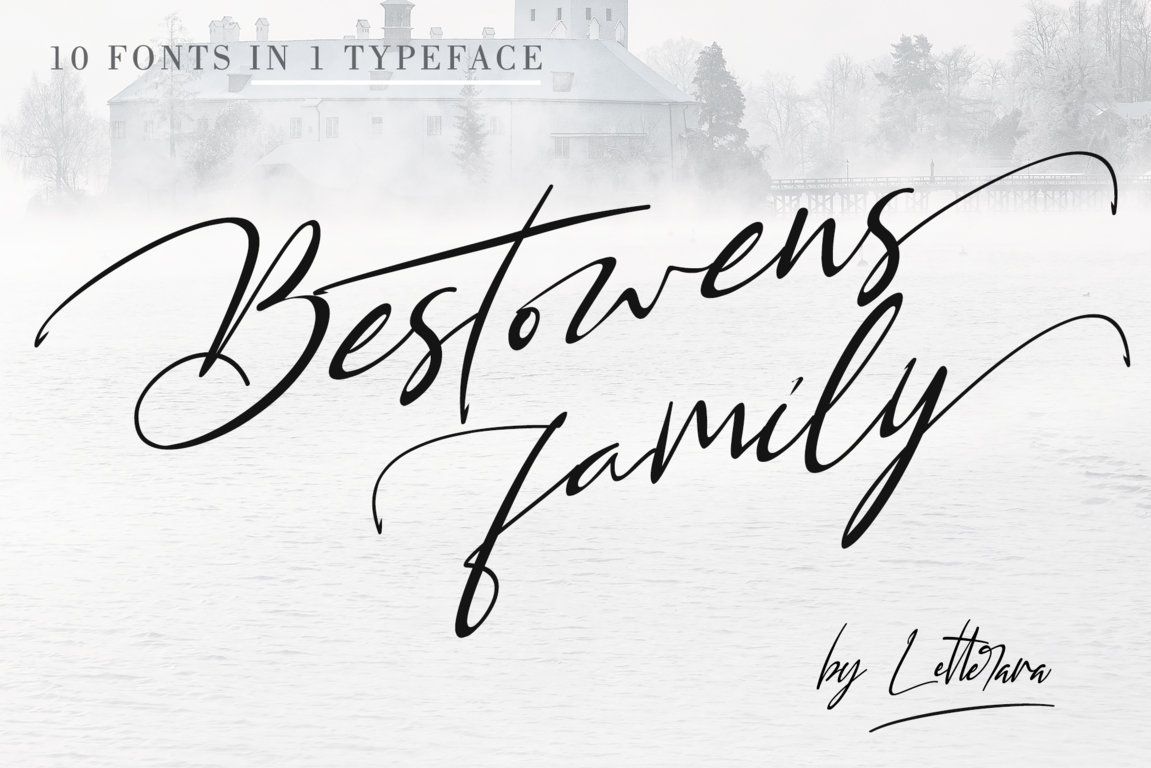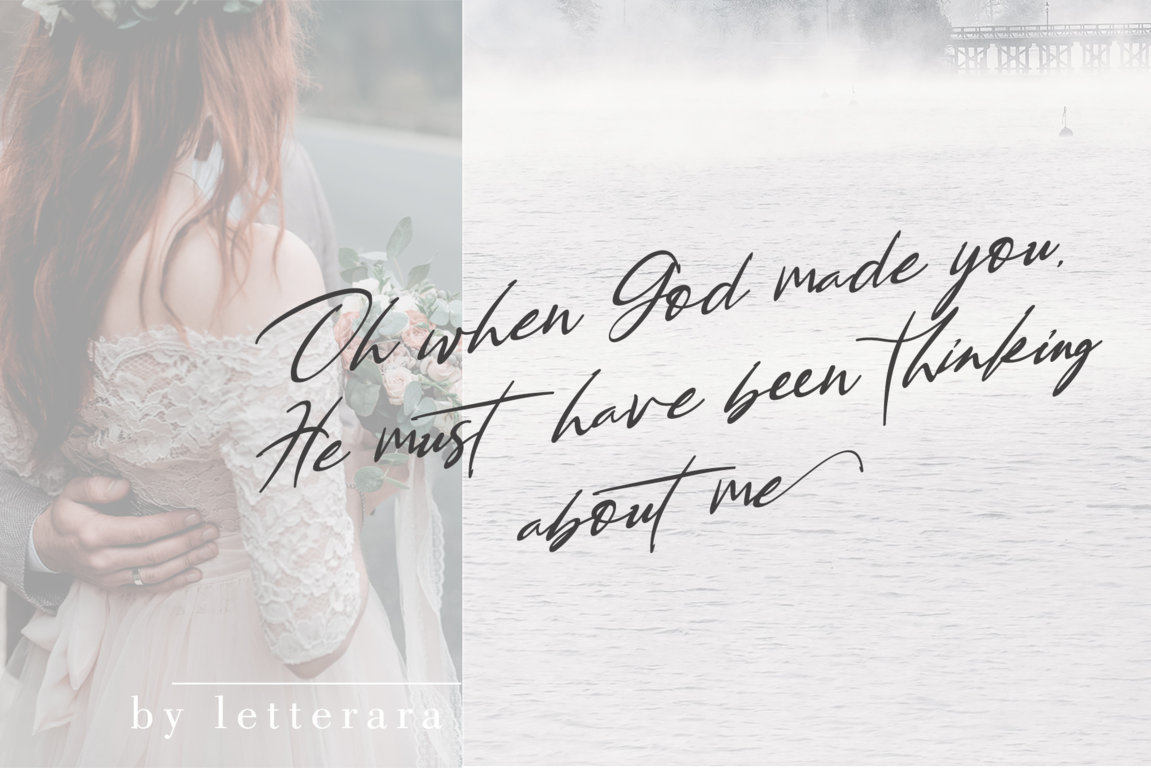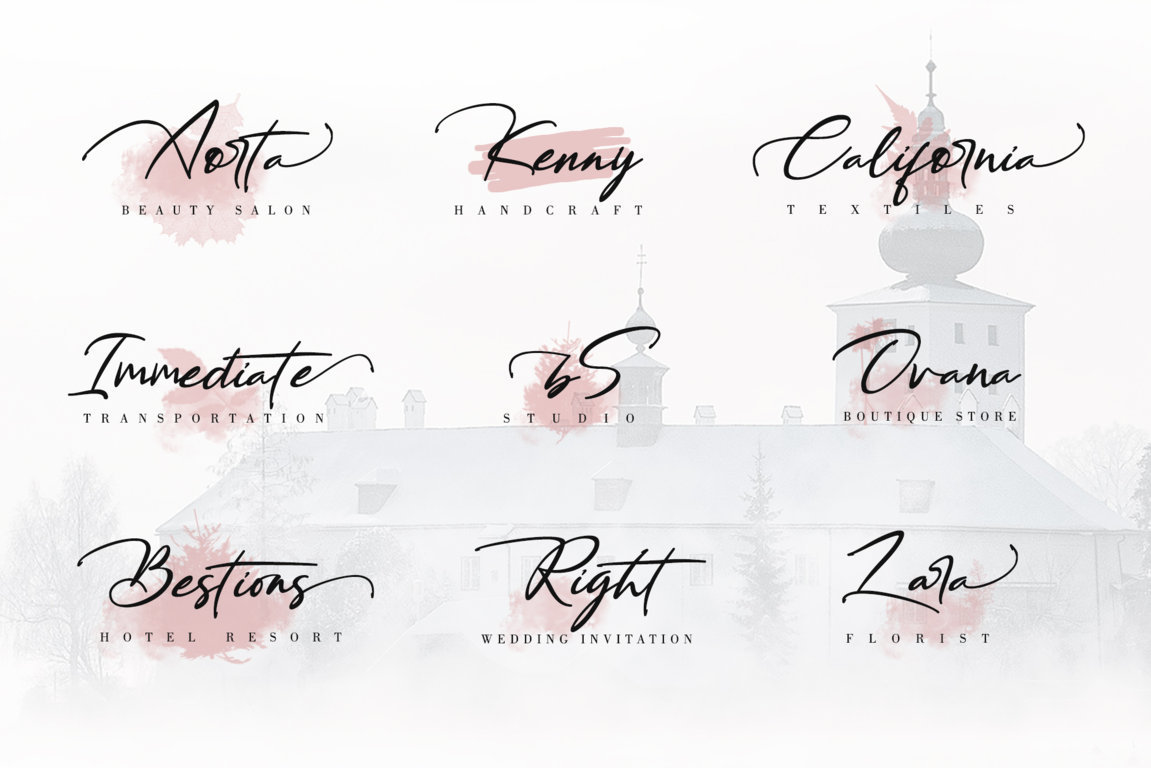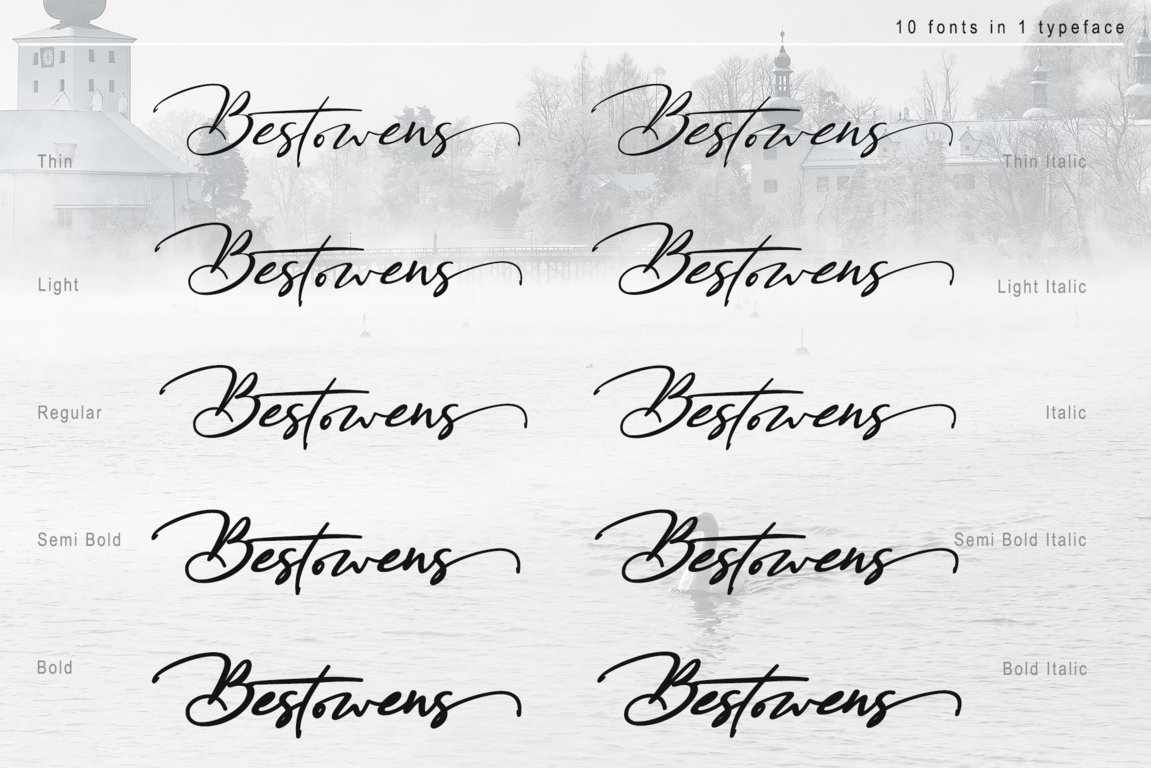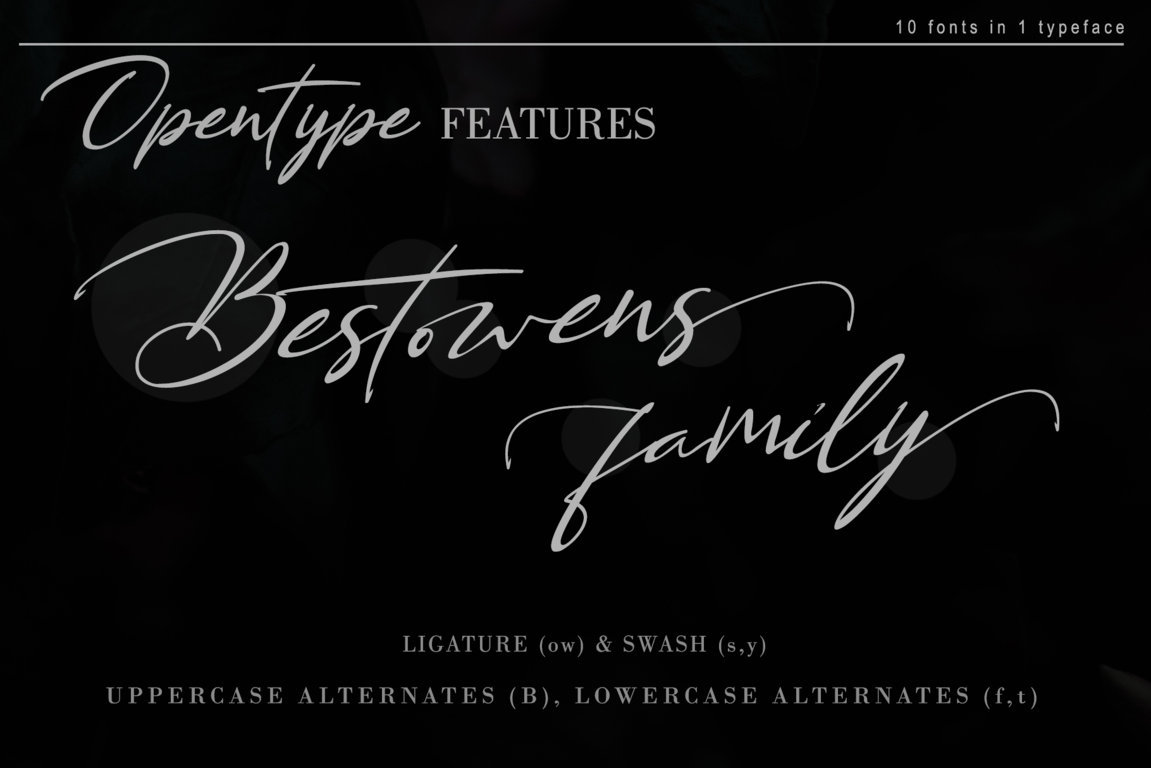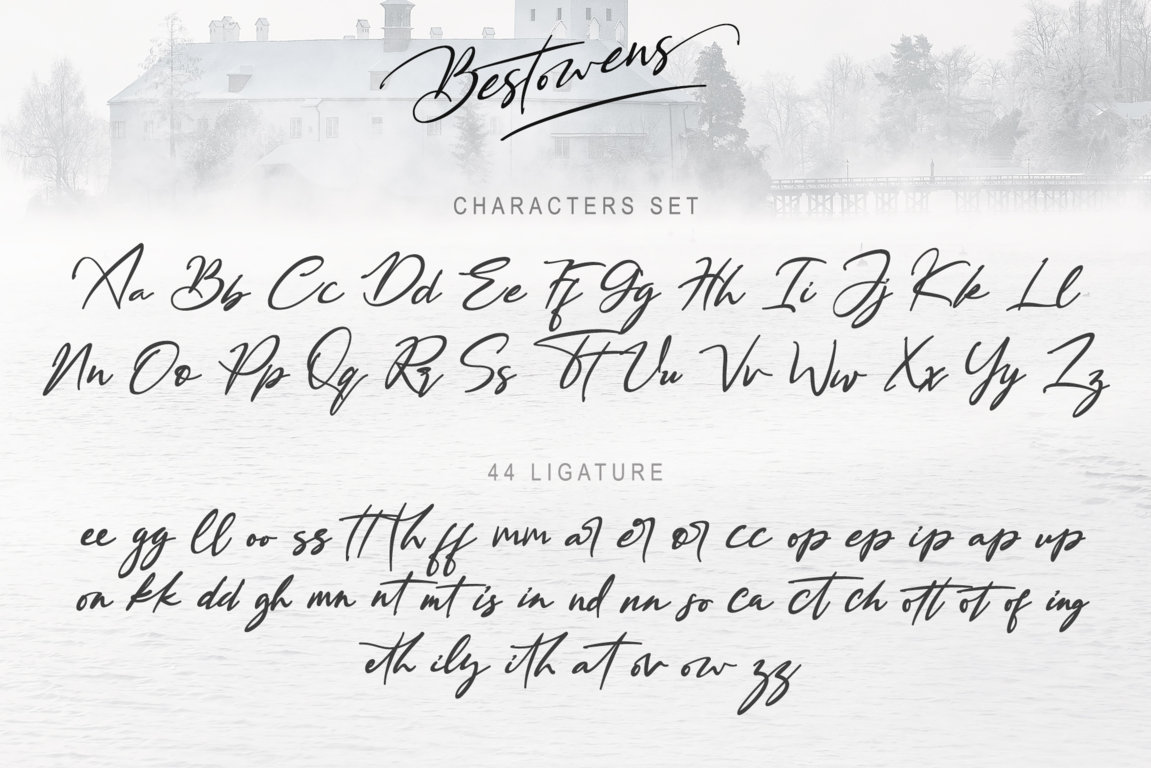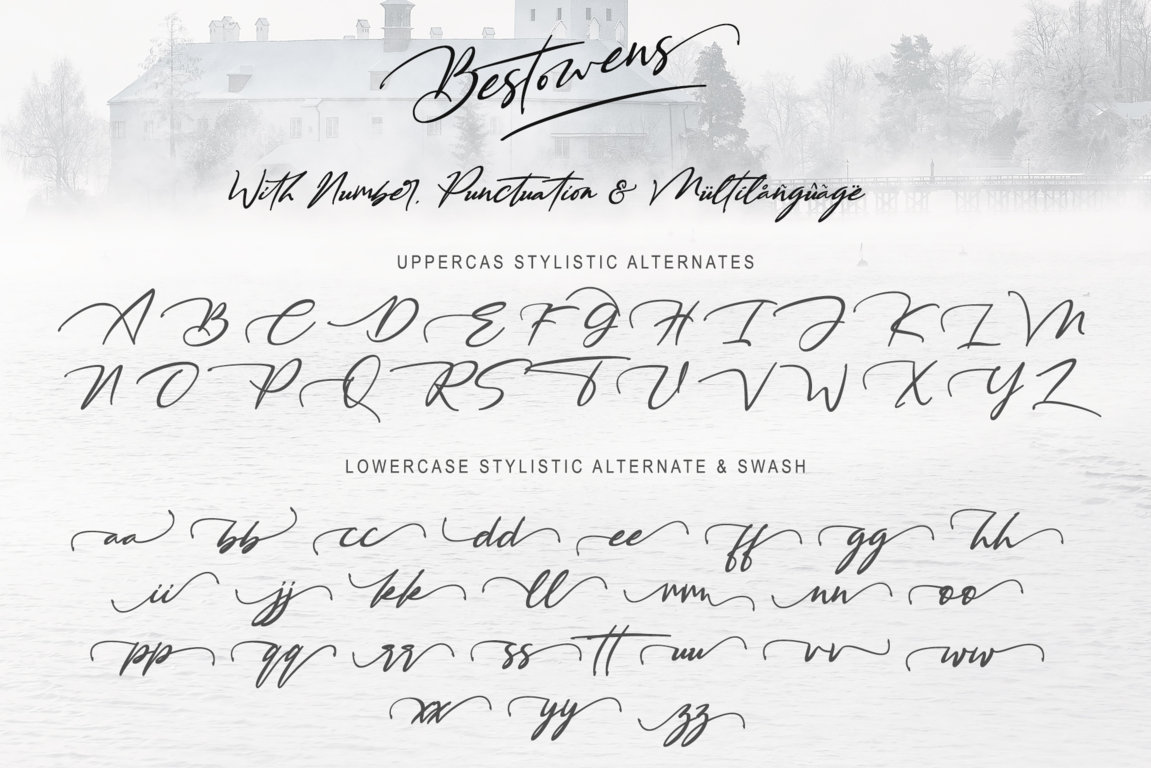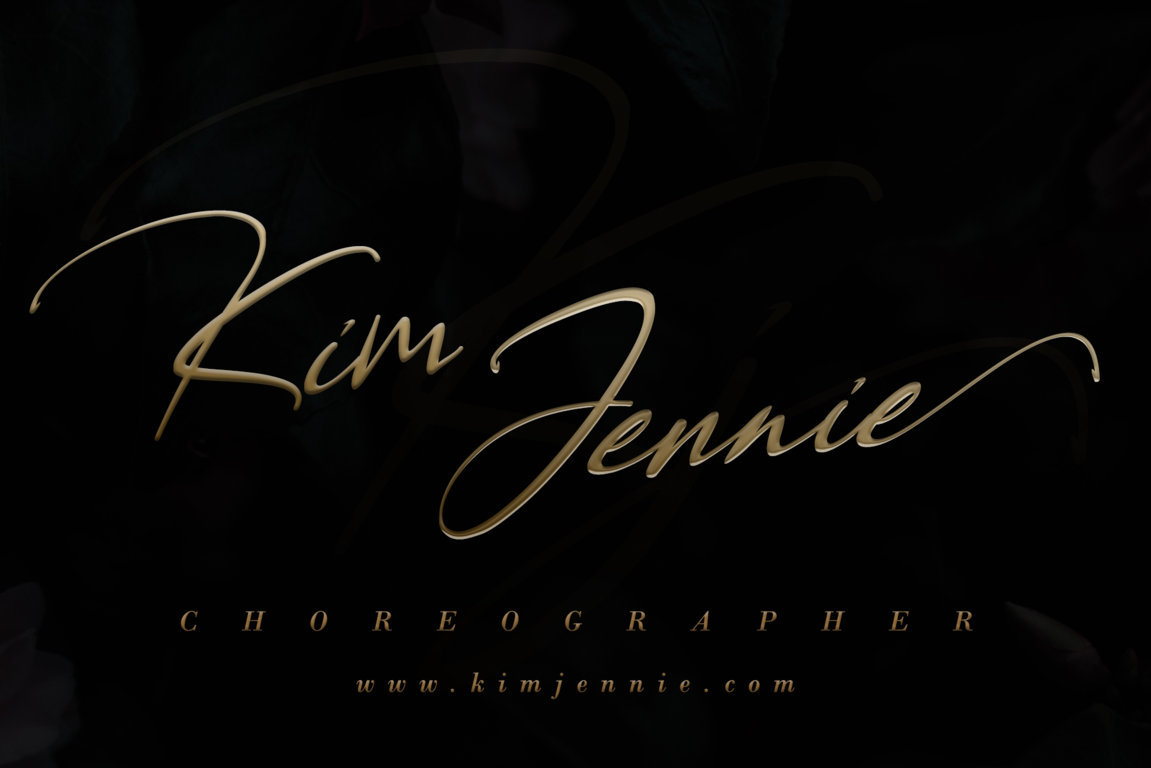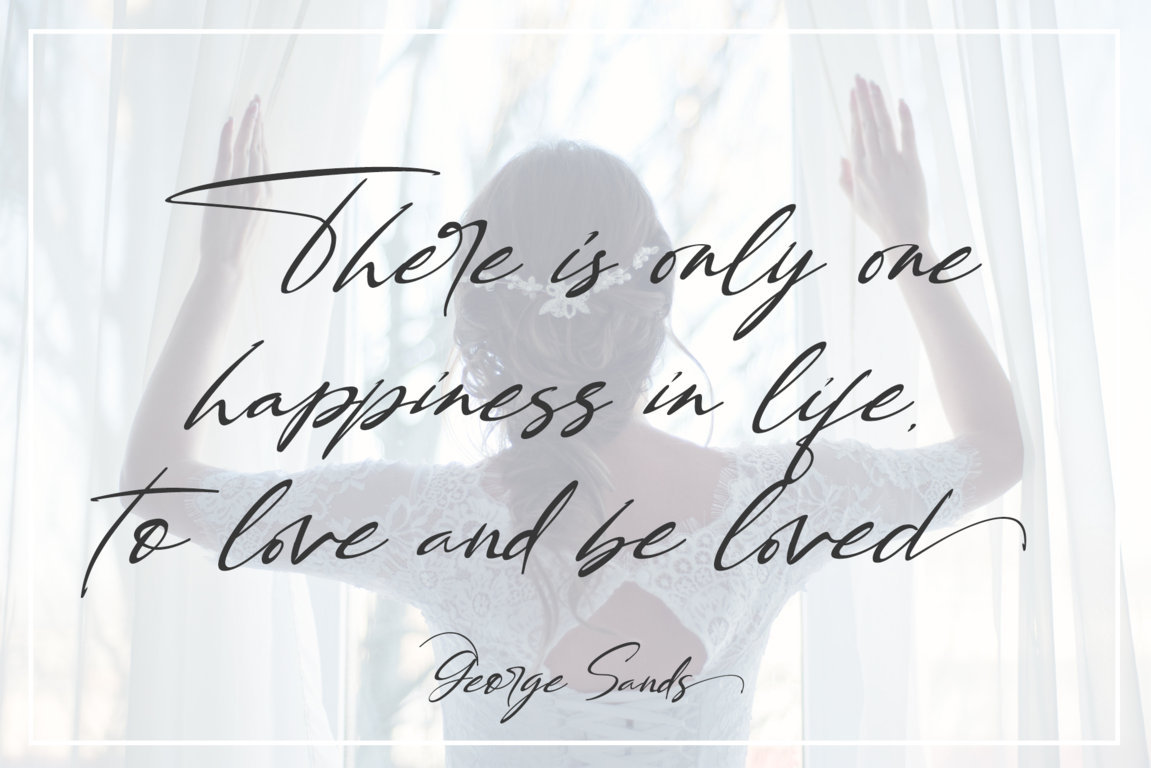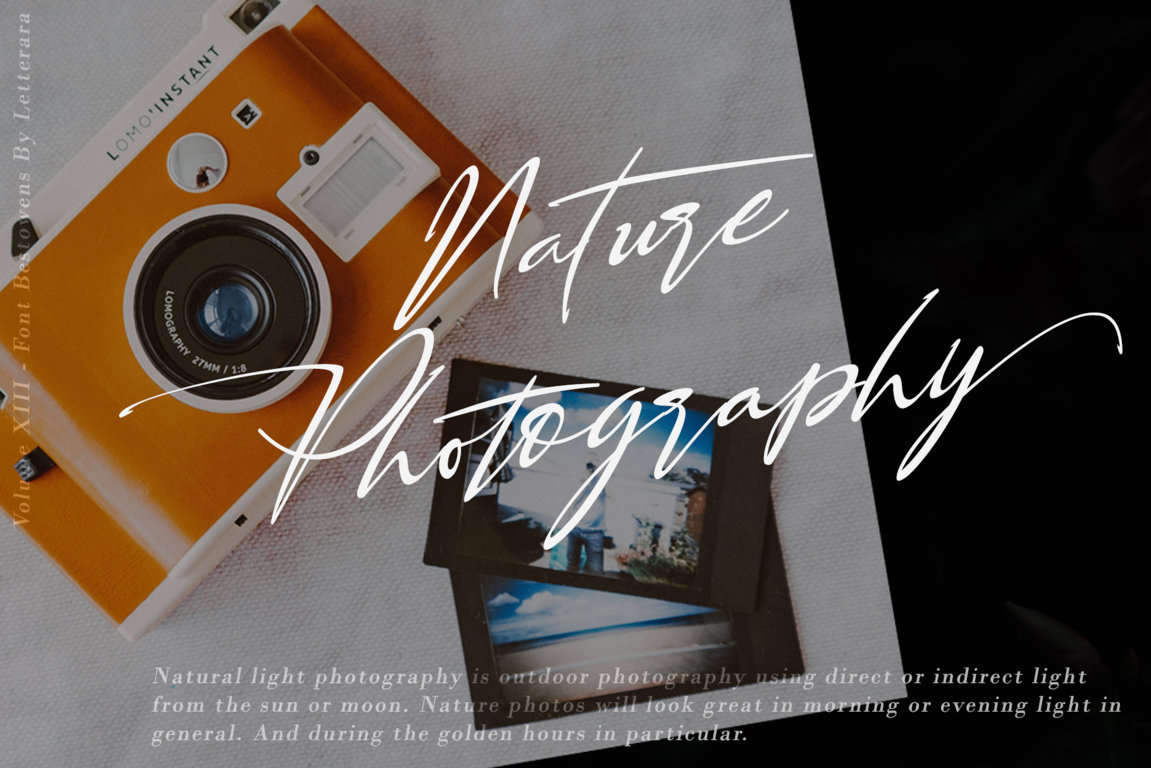
Bestowens Family is the epitome of an exquisite handwritten font. With its elegant, sweet, innocent, light, and charming characteristics, this one-of-a-kind typeface will infuse a unique charm into any design project. Crafted to resemble a natural handwritten script, Bestowens Family includes 44 ligatures, allowing it to emulate the fluidity of authentic writing. Experience the magic as this script font comes to life, making it seem as if you’re penning each letter yourself. The accompanying image showcases its remarkable qualities. In addition, a wide range of swashes (a-z) and alternates (A-Z, a-z) are at your disposal, enabling you to give your logo or name a personalized, hand-calligraphy look. Bestowens Family boasts 10 styles in one typeface: Thin, Light, Regular, Semi Bold, Bold, Thin Italic, Light Italic, Semi Bold Italic, and Bold Italic. Most importantly, Bestowens Family is the perfect match for your creative endeavors. Don’t hesitate any longer—add it to your shopping basket and bring your designs to life!
- Support multilingual; ä ö ü Ä Ö Ü ß ¿ ¡
- Numerals & Punctuation
- lowercase and uppercase letters
- Uppercase alternate, lowercase alternate, swash, & ligature